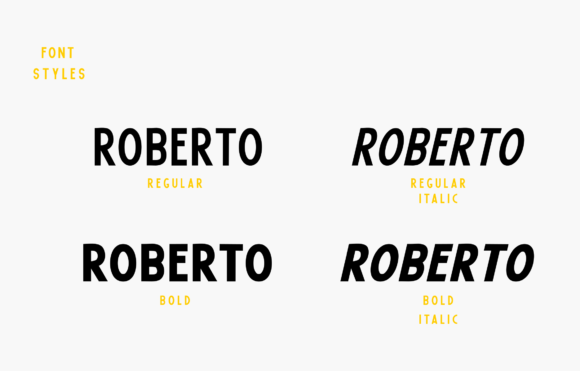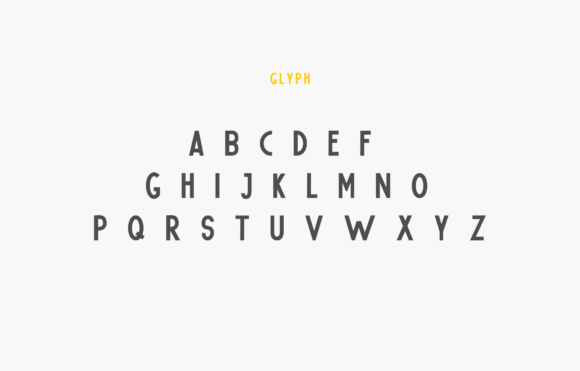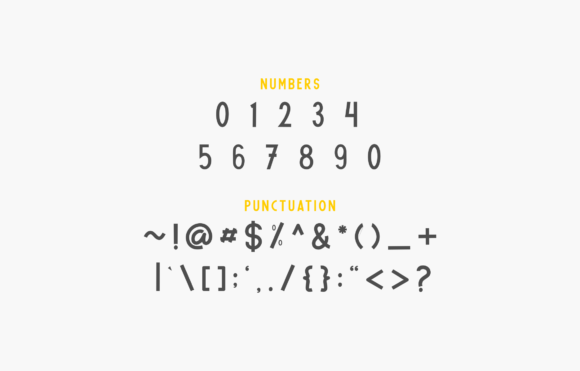
Introduction to Roberto Font
Do you remember that moment when you’re brainstorming ideas for your next creative project, and the perfect font just slips into place, elevating your entire concept? That’s exactly what Roberto Font does for designers. This elegant and professional sans serif font is a game-changer, effortlessly matching with a wide range of projects and making them stand out.
As a valuable design resource, Roberto Font offers a transparent background, allowing you to create a seamless visual experience. Its high-quality design makes it perfect for various applications, from digital interfaces to print materials. And the best part? It’s available for free download, making it an accessible choice for designers of all levels.
Key Features of Roberto Font
- High-quality font design with a transparent background, ideal for creative projects and design resources.
- Designed by a professional font creator, Roberto Font offers a unique and stylish aesthetic for any creative project.
- Supports a wide range of languages and characters, making it a versatile design resource for various applications.
- Roberto Font is a highly customizable font, allowing users to adjust the size, color, and style to suit their creative needs.
Honest Review: Roberto Font
I recently stumbled upon Roberto Font, and I’m excited to share my thoughts with you. This beautiful font is perfect for designers looking for a high-quality resource for their creative projects.
What works well: ✨ The font is incredibly versatile, making it suitable for a wide range of design projects, from headings to body text. The transparent background allows for seamless integration with other design elements, giving your project a clean and modern look. Additionally, the free download option makes it an excellent choice for designers on a budget.
Here are some of my favorite features:
- High-quality design that’s perfect for print and digital projects
- Transparent background for easy integration with other design elements
- Perfect for creative projects, including logos, branding, and more
Overall, I’m impressed with Roberto Font, and I would highly recommend it to designers looking for a high-quality, free design resource. With its versatility, clean design, and transparent background, it’s an excellent choice for any creative project.
The Roberto Font is a high-quality, free download that can elevate any creative project. This versatile font is perfect for designers and non-designers alike, offering a transparent background that allows for seamless integration into any design.
Tips for Getting the Most Out of Roberto Font
To get the most out of the Roberto Font, use it in conjunction with a high-quality image or graphic. This will create a stunning visual effect that is sure to grab attention.
The Roberto Font is perfect for use in social media graphics, logos, and branding materials. It’s also great for creating eye-catching presentations and documents.